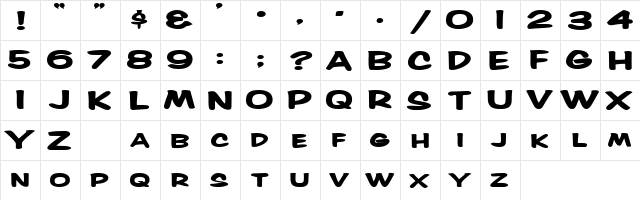
0 Taylor Caz DNA Regular
Design Context for 0 Taylor Caz DNA Typeface
0 Taylor Caz DNA is a composed and adaptable typeface that performs quietly and consistently across a wide range of design contexts.